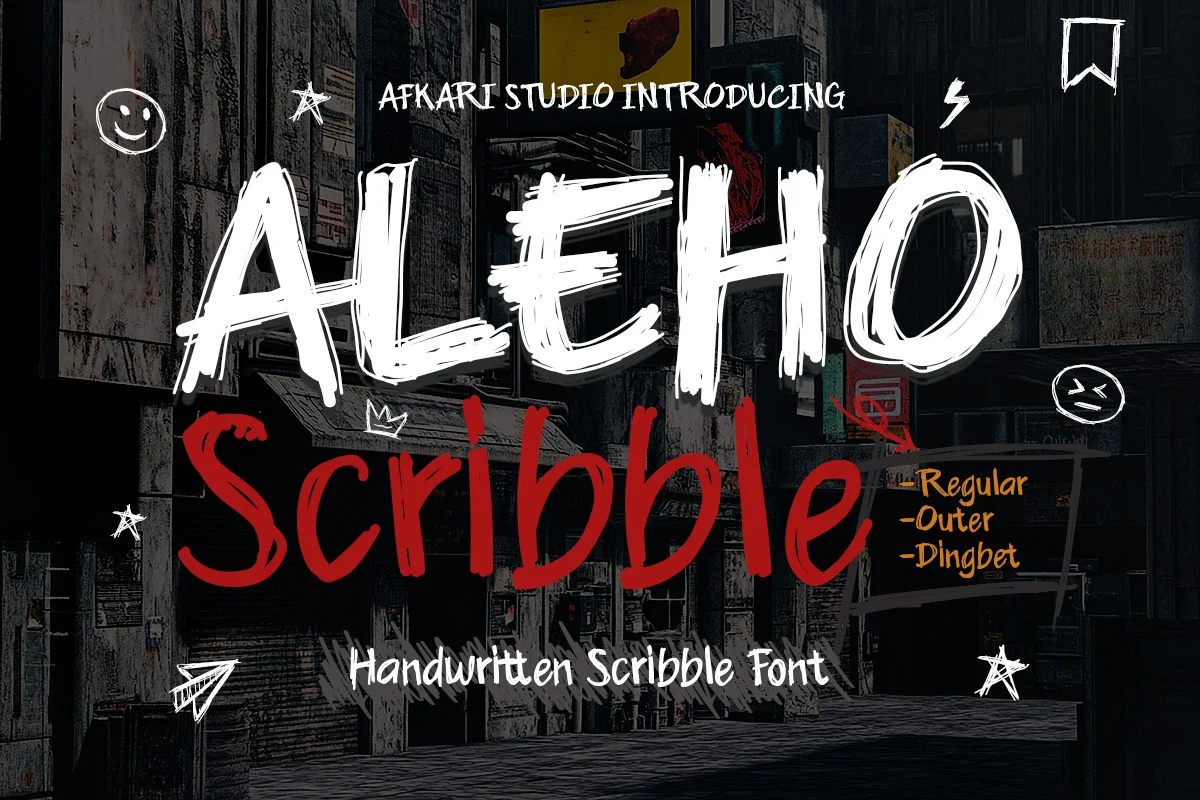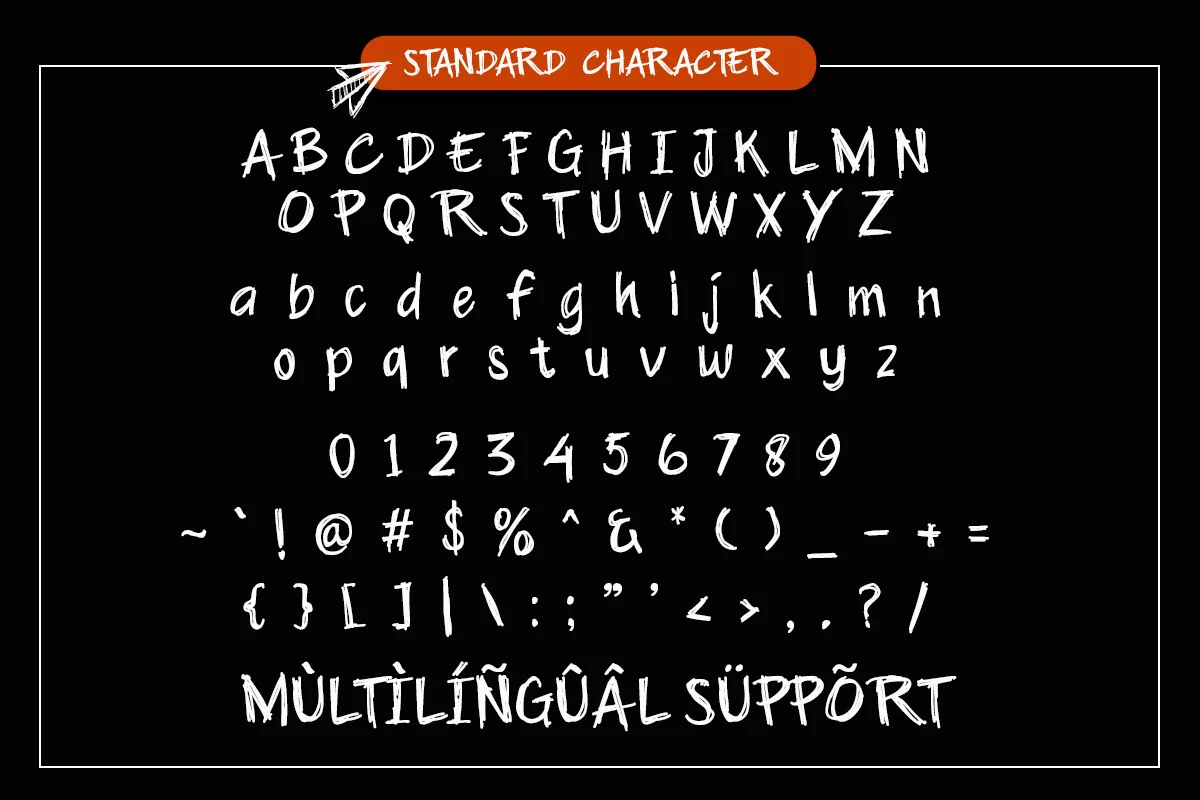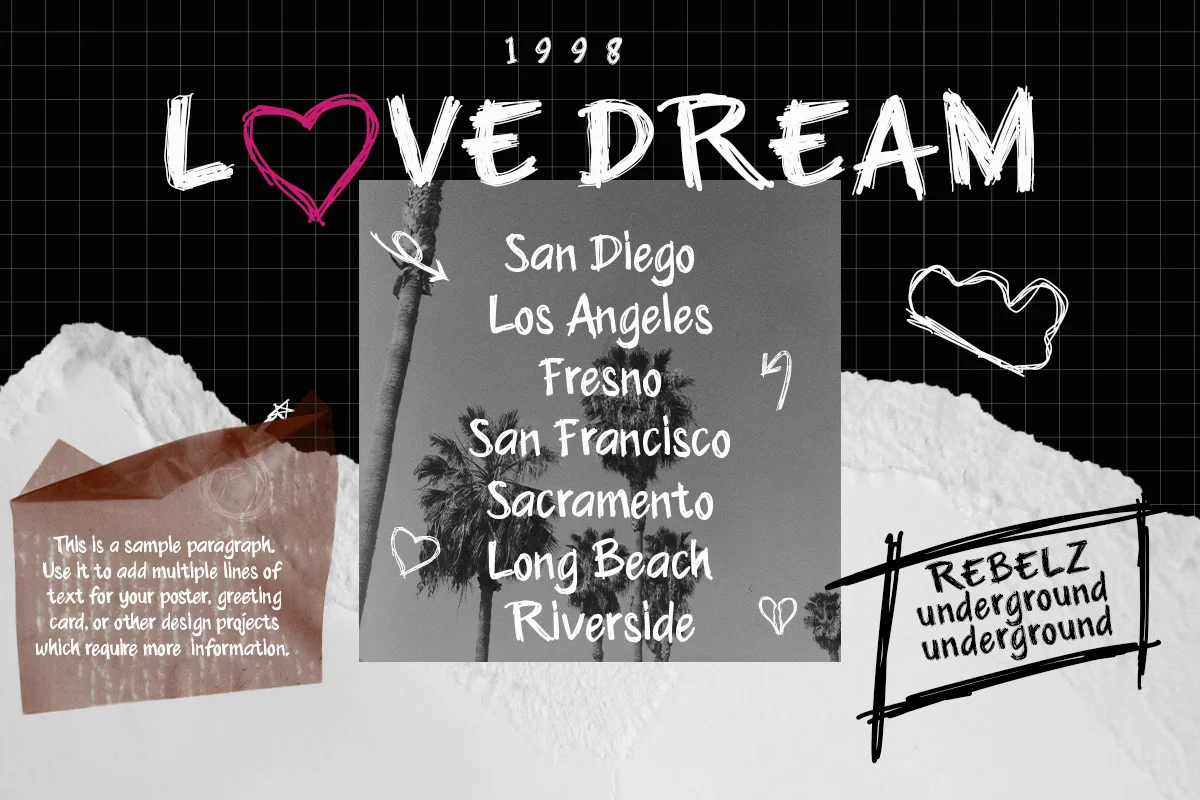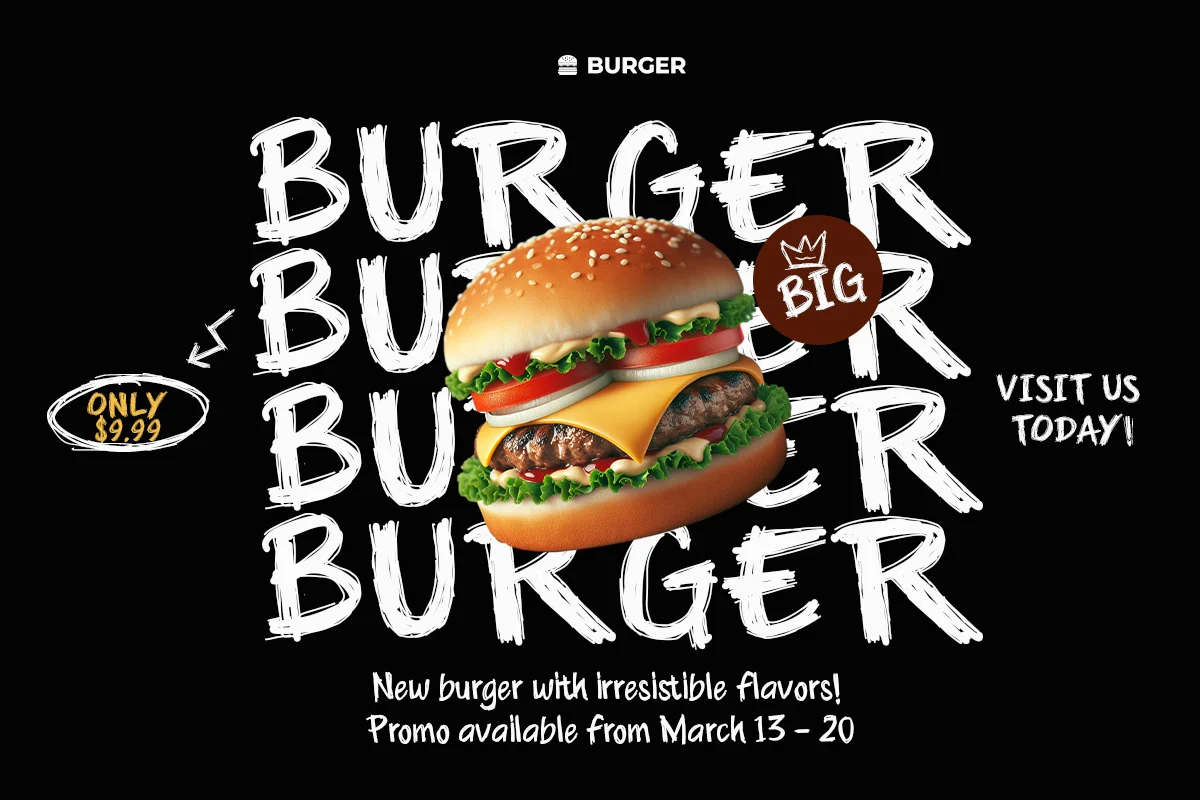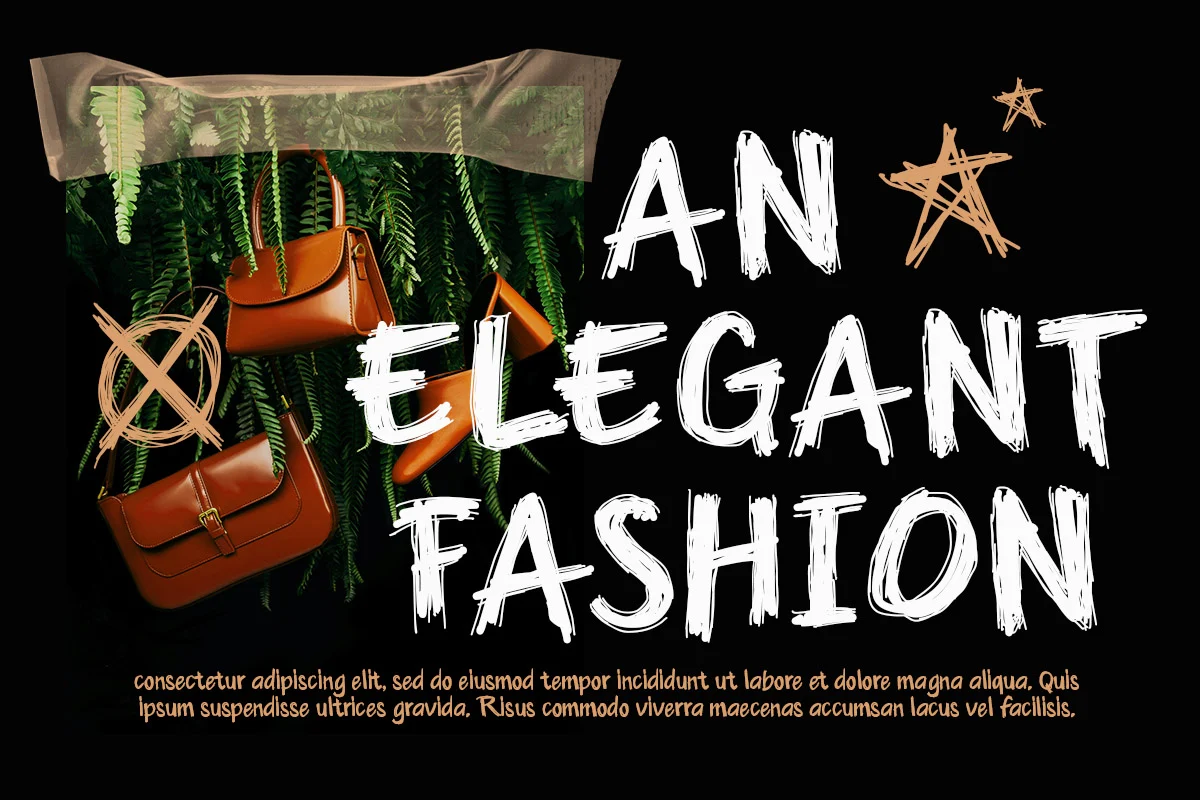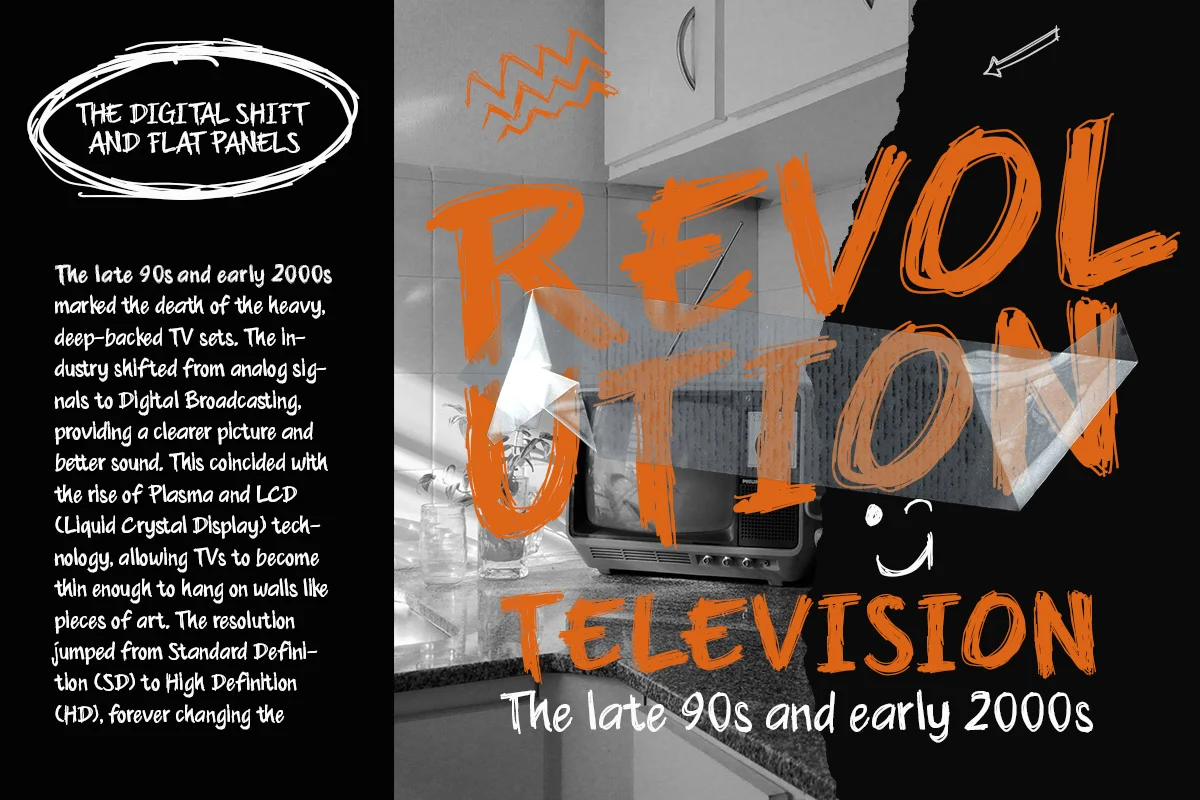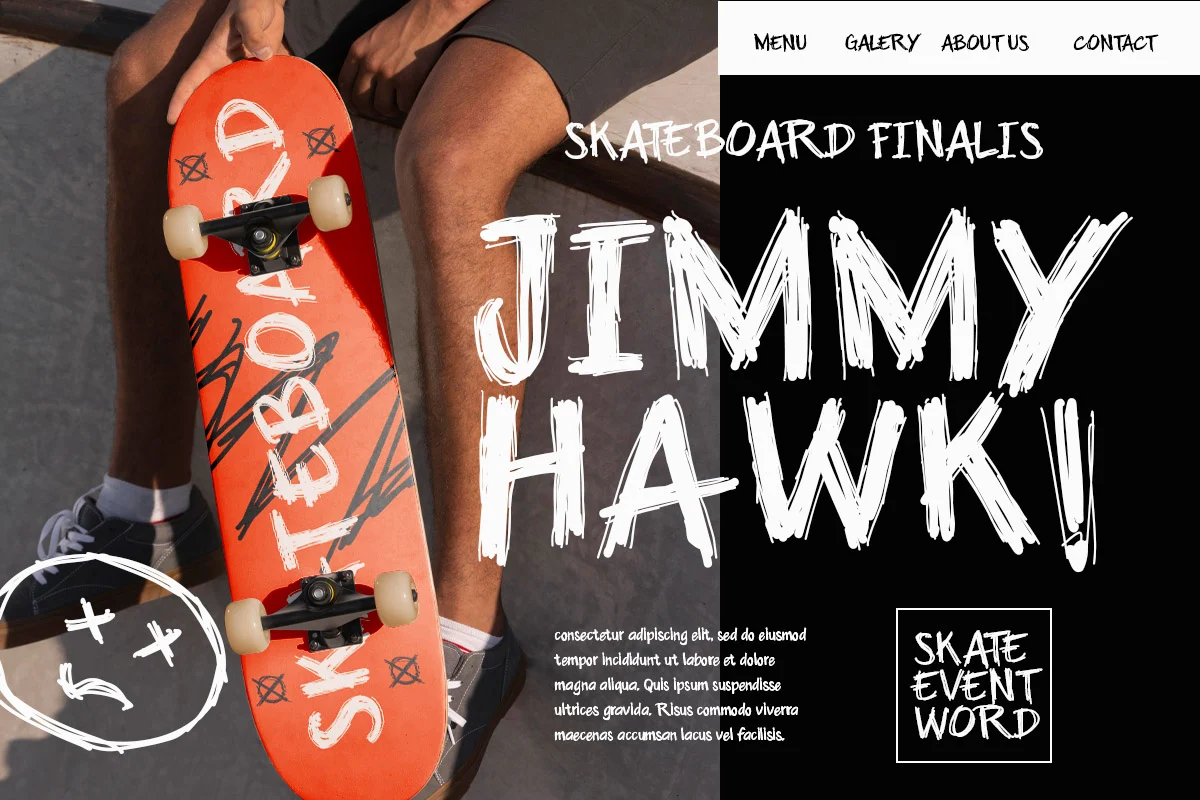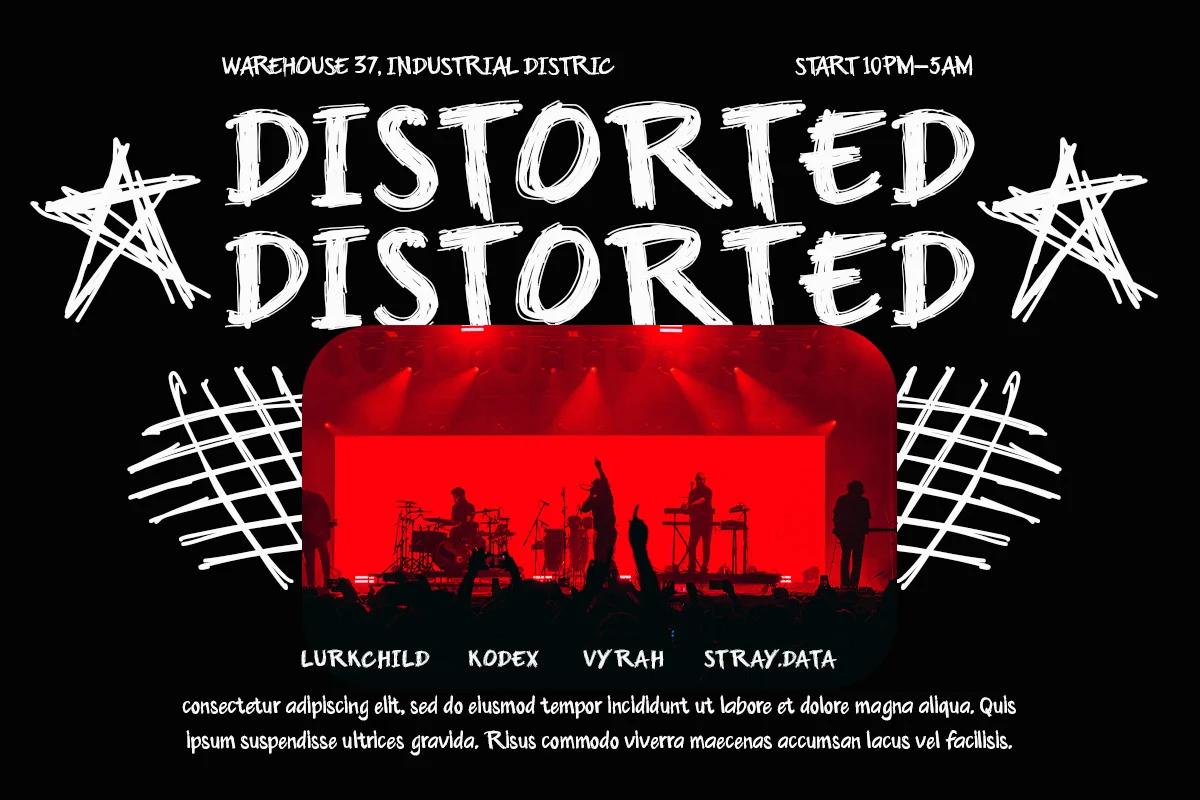
Aleho Scribble
Aleho Scribble Outer
Aleho Scribble Dingbat
Aleho Scribble is a playful handwriting scribble font designed to bring a spontaneous, fun, and creative feel to your designs. Inspired by natural doodles and casual handwritten strokes, this font captures the imperfect charm of hand-drawn lettering, making every project feel more personal and expressive.
Aleho Scribble is perfect for designs that need a relaxed, youthful, and artistic look. Whether used for posters, social media graphics, packaging, kids projects, social media graphics, or creative branding, this font adds a lively handmade touch that instantly attracts attention.
This font package includes three styles, allowing designers to explore more creative possibilities in one family.
Included Styles
Regular – Clean handwritten scribble style for main text and headlines
Outer – Outline version for layered or creative typographic effects
Bonus Dingbat – Extra doodles and scribble elements to enhance layouts
Highlighted Features:
– Natural handwritten scribble style
– Fun and expressive character shapes
– Uppercase & lowercase letters
– Numbers & punctuation
– Bonus doodle dingbats included
– Mültîlíñgúãl Sùppört for; ä ö ü Ä Ö Ü ß ¿ ¡
Add playful and expressive personality to your designs with Aleho Scribble – Handwriting Scribble Font, a fun font family built for creative freedom.
Aleho Scribble – Handwritting Scribble Font